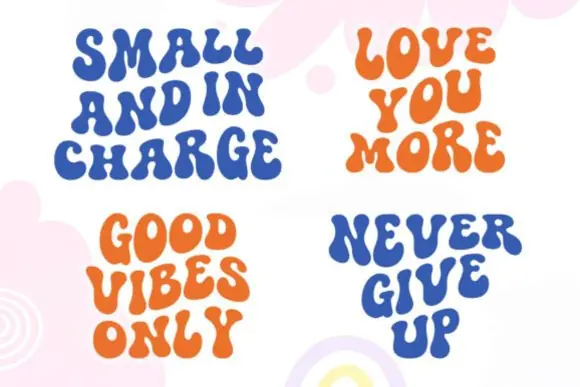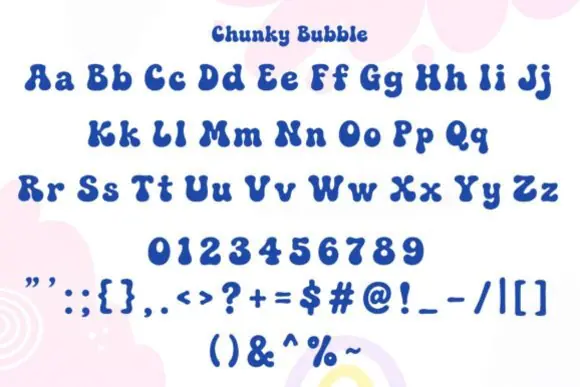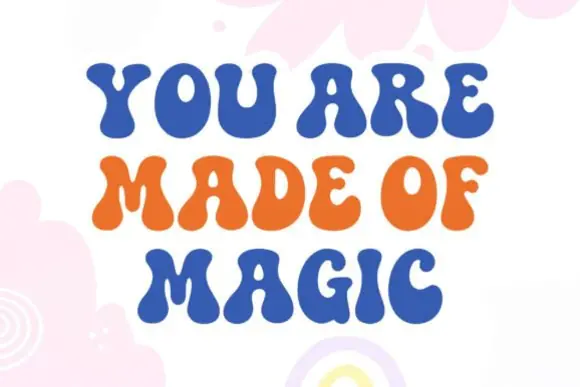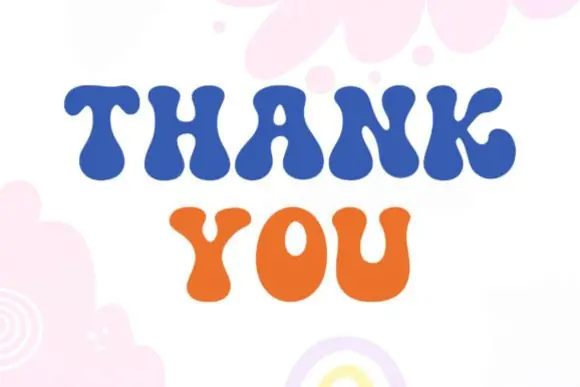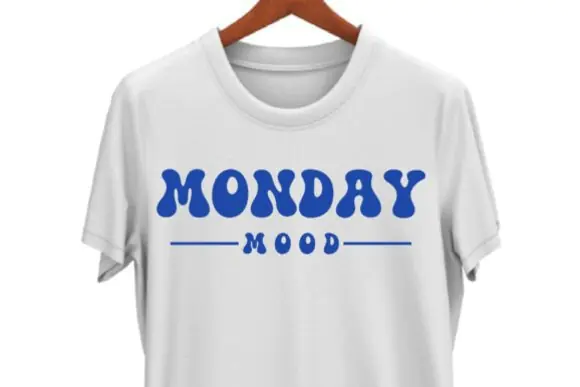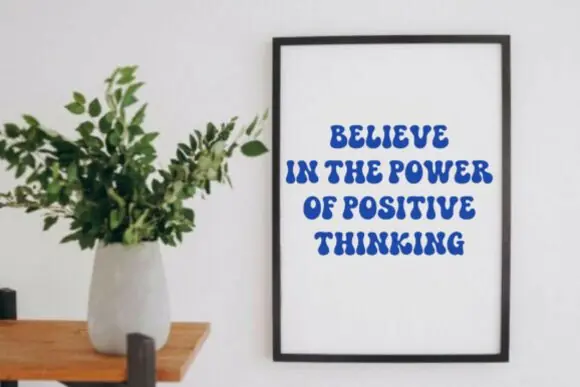
Chunky Bubble Font | Bold Playful Rounded Display Typeface for T-Shirts, Stickers, Logos, Posters, Kids Designs & Fun Branding Projects
Create bold, cheerful, and highly readable designs with Chunky Bubble Font, a playful display typeface featuring thick rounded letters and a soft bubbly style. This font is perfect for creative projects that need a fun, friendly, and eye-catching look while still keeping the text clear and easy to read.
Chunky Bubble Font works beautifully for t-shirt designs, stickers, logos, posters, kids’ graphics, product labels, social media posts, party invitations, classroom materials, packaging, printable wall art, and playful branding projects. Its smooth curves and clear spacing make it suitable for both print and digital designs.
Whether you are creating a cute children’s poster, a fun brand logo, a colorful sticker set, or a bold apparel design, Chunky Bubble Font adds a joyful and modern bubble-letter style that helps your text stand out with charm and personality.
• T-shirt designs
• Stickers and labels
• Logo designs
• Posters and flyers
• Kids’ designs
• Fun branding projects
• Party invitations
• Classroom materials
• Product packaging
• Printable wall art
• Birthday designs
• Children’s book titles
• Craft projects
• Playful headline typography